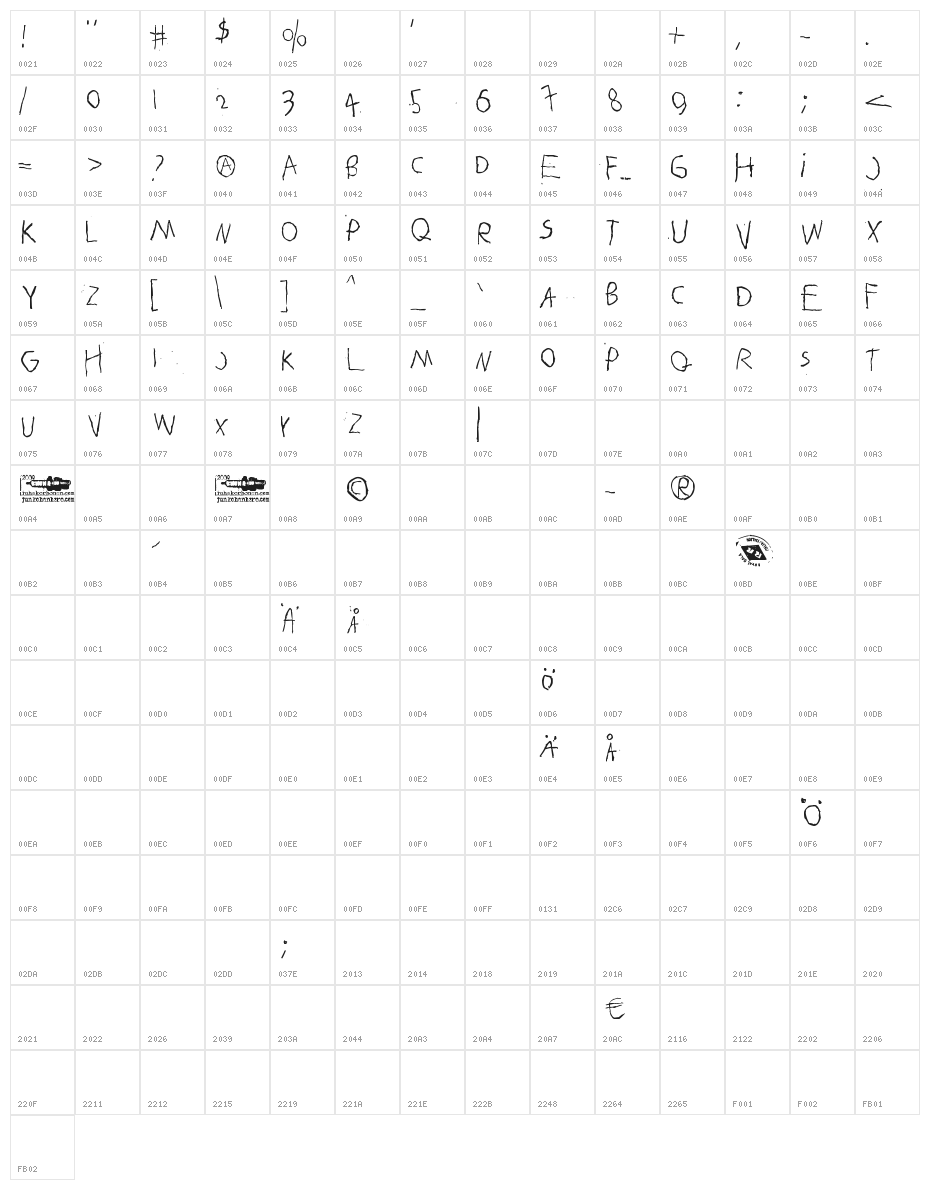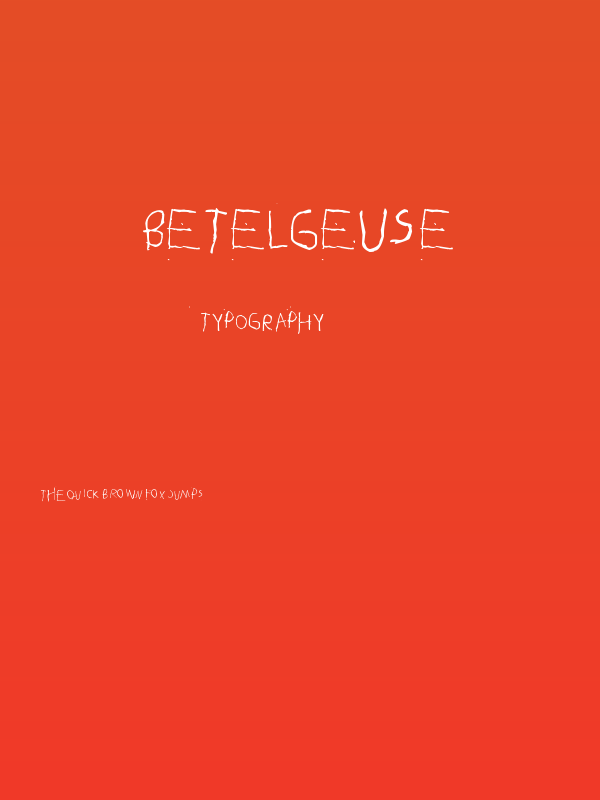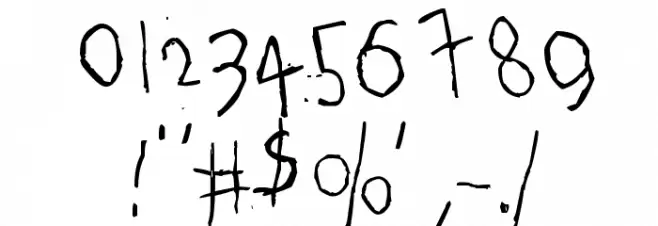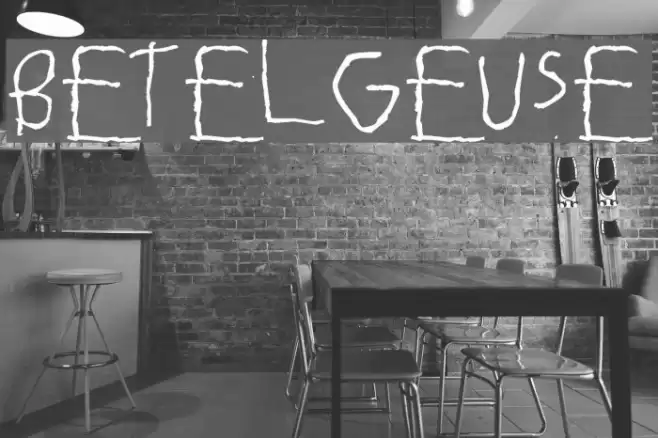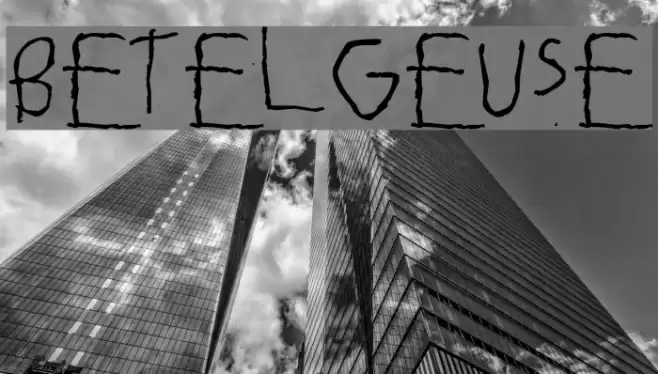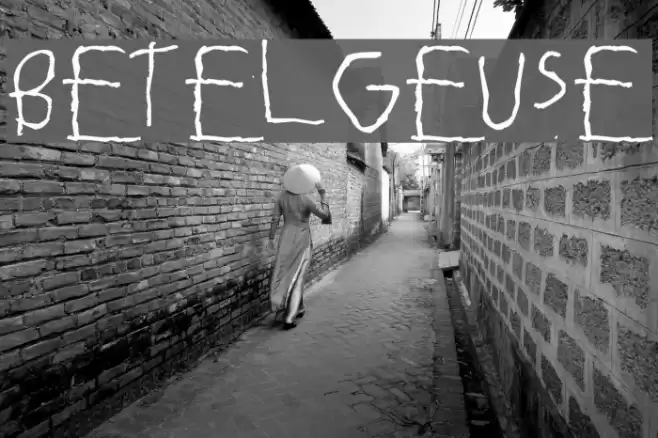
Betelgeuse Font
Betelgeuse Description
This font features a hand-drawn, sketch-like appearance with irregular strokes and a slightly chaotic aesthetic. The characters are unevenly shaped, giving a raw and organic feel. The uppercase and lowercase letters maintain a consistent style, with jagged edges and varying line thicknesses that suggest a casual, artistic vibe. The numerals and special characters follow the same design, adding to the font's cohesive yet unrefined look. This style is reminiscent of handwritten notes or doodles, making it stand out with its unique personality.
| Use Case | Logos, Posters, Creative projects |
| Proposed Projects | Ideal for creative projects such as posters, album covers, or any design requiring a personal, artistic touch. |